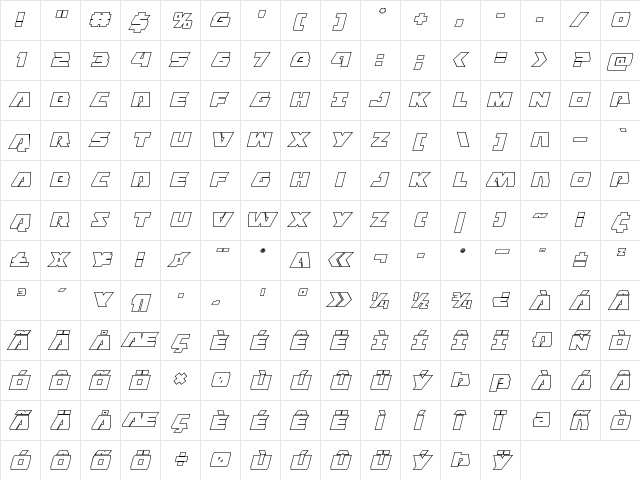
Eagle Strike Outline Italic Outline Italic
| Style | Outline Italic |
Design Context for Eagle Strike Outline Italic Typeface
Eagle Strike Outline Italic is built around its visual character rather than neutral utility — its distinctive forms are designed to make an impression at display sizes. Its italic angle brings a sense of urgency and motion to the letterforms.
Font Pairing: Pair with a clean neutral sans-serif for body copy to let Eagle Strike Outline Italic's character lead without overwhelming the composition.
Pro Tip: Use Eagle Strike Outline Italic exclusively at display sizes — it was designed to be seen, not read at length. Let a neutral companion handle body copy.